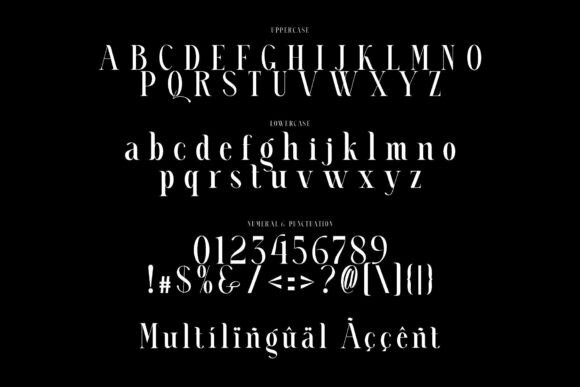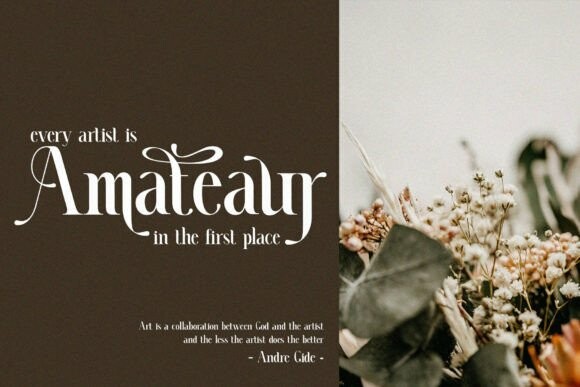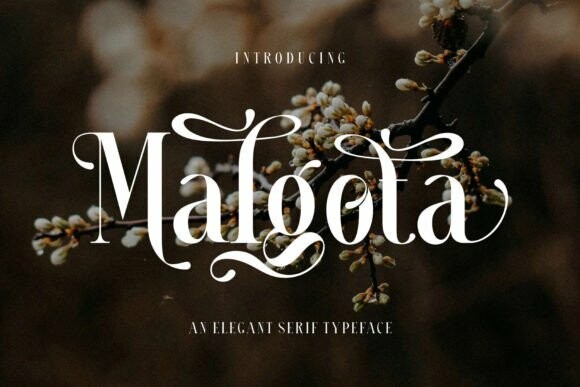
Malgota Font
Designer: Alfinart
Malgota Font – Elegant Serif Typeface inspired by the famous minimalist logo perfect for the purposes of designing templates, brochures, videos, advertising branding, logos, invitation, layout design, elegant crafting, beauty design and others.
This font is PUA encoded which means you can access all of the amazing glyphs and ligatures with ease!